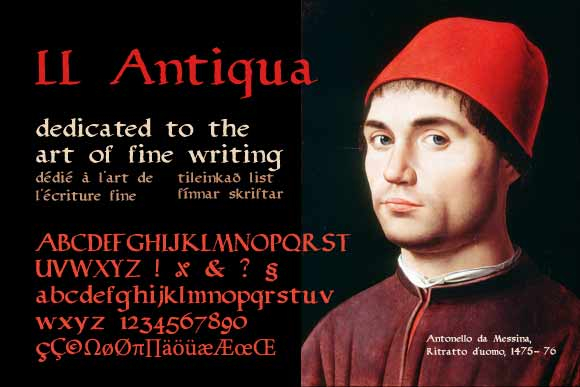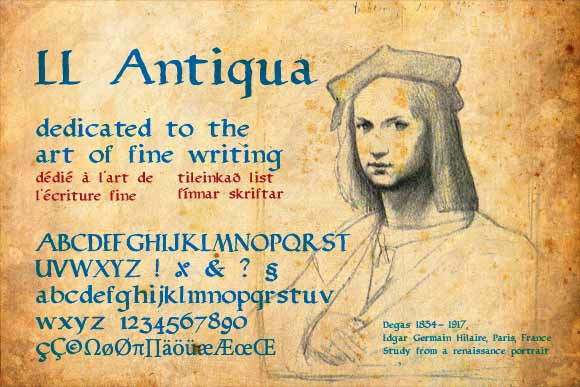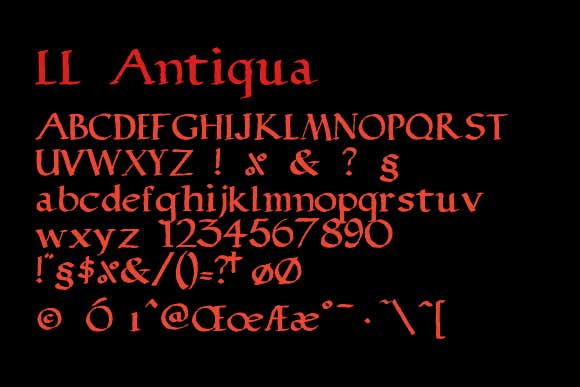
LL Antiqua Font
About LL Antiqua Font
LL Antiqua is a simple and historical blackletter font that is dedicated to the art of fine writing, with small details such as angled lowercase letters and rounded serifs. Each individual glyph was written with a broad pen and digitally revised. This font can be used for vintage and medieval-themed designs.